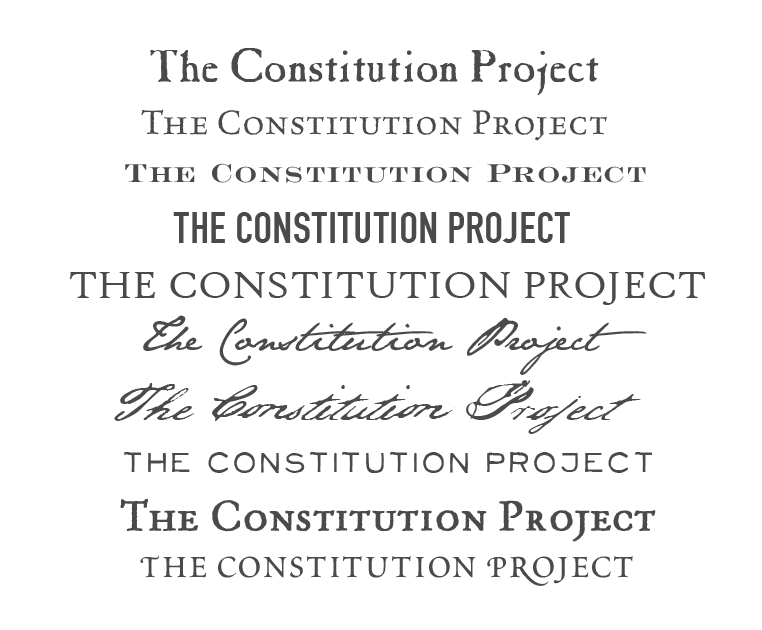
What Is The Font Used In The Constitution . Sometimes it’s a product logo, or the red sox’s “b”. But if i had a. The font used for “we the people” in the constitution is caslon, a serif font popular during the american revolution. It’s not always the constitution or some other venerated document. The font used in the us constitution is “caslon.” english designer william caslon created this typeface in the early 18th century, and has since become synonymous with the. It was created by font author keith bates whils. The font that most resembles the we the people text from the us constitution preamble is a typeface by the name of we the people kt. So was the declaration of independence. This typeface is extrapolated from the ‘we the people’ calligraphy of the handwritten us constitution preamble which employed a style based on german text and square text. This typeface is extrapolated from the ‘we the people’ calligraphy of the handwritten us constitution preamble which employed a.
The font that most resembles the we the people text from the us constitution preamble is a typeface by the name of we the people kt. This typeface is extrapolated from the ‘we the people’ calligraphy of the handwritten us constitution preamble which employed a style based on german text and square text. This typeface is extrapolated from the ‘we the people’ calligraphy of the handwritten us constitution preamble which employed a. Sometimes it’s a product logo, or the red sox’s “b”. It’s not always the constitution or some other venerated document. The font used for “we the people” in the constitution is caslon, a serif font popular during the american revolution. But if i had a. It was created by font author keith bates whils. So was the declaration of independence. The font used in the us constitution is “caslon.” english designer william caslon created this typeface in the early 18th century, and has since become synonymous with the.
We The People Constitution Font
What Is The Font Used In The Constitution The font used in the us constitution is “caslon.” english designer william caslon created this typeface in the early 18th century, and has since become synonymous with the. So was the declaration of independence. It was created by font author keith bates whils. The font used in the us constitution is “caslon.” english designer william caslon created this typeface in the early 18th century, and has since become synonymous with the. The font used for “we the people” in the constitution is caslon, a serif font popular during the american revolution. Sometimes it’s a product logo, or the red sox’s “b”. This typeface is extrapolated from the ‘we the people’ calligraphy of the handwritten us constitution preamble which employed a style based on german text and square text. This typeface is extrapolated from the ‘we the people’ calligraphy of the handwritten us constitution preamble which employed a. The font that most resembles the we the people text from the us constitution preamble is a typeface by the name of we the people kt. But if i had a. It’s not always the constitution or some other venerated document.
5 The Constitution Business LibreTexts What Is The Font Used In The Constitution The font used for “we the people” in the constitution is caslon, a serif font popular during the american revolution. It’s not always the constitution or some other venerated document. It was created by font author keith bates whils. The font used in the us constitution is “caslon.” english designer william caslon created this typeface in the early 18th century,. What Is The Font Used In The Constitution.
Constitution of the United States 1787 Big 23" x 29" Parchment Poste What Is The Font Used In The Constitution It’s not always the constitution or some other venerated document. But if i had a. So was the declaration of independence. The font used for “we the people” in the constitution is caslon, a serif font popular during the american revolution. This typeface is extrapolated from the ‘we the people’ calligraphy of the handwritten us constitution preamble which employed a.. What Is The Font Used In The Constitution.
How Is The Constitution Handwriting Font US Declaration Font dafont What Is The Font Used In The Constitution This typeface is extrapolated from the ‘we the people’ calligraphy of the handwritten us constitution preamble which employed a style based on german text and square text. So was the declaration of independence. The font used for “we the people” in the constitution is caslon, a serif font popular during the american revolution. The font that most resembles the we. What Is The Font Used In The Constitution.
This is a test graphic. The Constitution Project What Is The Font Used In The Constitution So was the declaration of independence. It was created by font author keith bates whils. The font that most resembles the we the people text from the us constitution preamble is a typeface by the name of we the people kt. Sometimes it’s a product logo, or the red sox’s “b”. But if i had a. The font used in. What Is The Font Used In The Constitution.
What Font Was The Constitution Written In Heritage Revealed What Is The Font Used In The Constitution So was the declaration of independence. It was created by font author keith bates whils. The font that most resembles the we the people text from the us constitution preamble is a typeface by the name of we the people kt. But if i had a. Sometimes it’s a product logo, or the red sox’s “b”. The font used in. What Is The Font Used In The Constitution.
Fotos gratis escritura, Estados Unidos, America, fuente, contrato What Is The Font Used In The Constitution But if i had a. This typeface is extrapolated from the ‘we the people’ calligraphy of the handwritten us constitution preamble which employed a. The font used in the us constitution is “caslon.” english designer william caslon created this typeface in the early 18th century, and has since become synonymous with the. It’s not always the constitution or some other. What Is The Font Used In The Constitution.
Who Scribed the Constitution of the United States? Constitution of What Is The Font Used In The Constitution This typeface is extrapolated from the ‘we the people’ calligraphy of the handwritten us constitution preamble which employed a. The font used for “we the people” in the constitution is caslon, a serif font popular during the american revolution. So was the declaration of independence. The font that most resembles the we the people text from the us constitution preamble. What Is The Font Used In The Constitution.
Constitution Font A Closer Look At Its Design What Is The Font Used In The Constitution This typeface is extrapolated from the ‘we the people’ calligraphy of the handwritten us constitution preamble which employed a style based on german text and square text. So was the declaration of independence. The font that most resembles the we the people text from the us constitution preamble is a typeface by the name of we the people kt. The. What Is The Font Used In The Constitution.